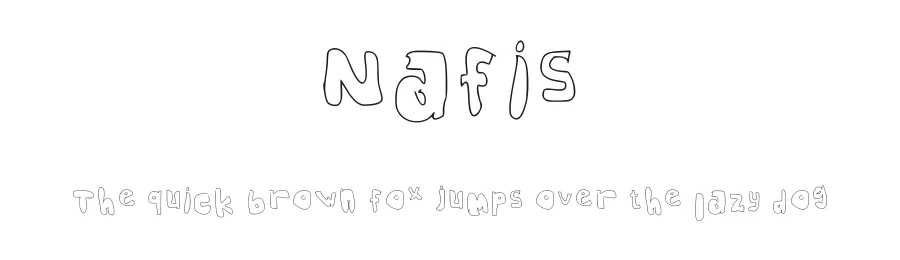
About Cloud Font
Cloud is a decorative font designed by Ashlye Etgen. It includes 53 glyphs, a regular weight, TTF (TrueType) format, and 89 languages. Cloud is free to download; check the license details on this page before commercial use. Decorative fonts like Cloud work best for logos, posters, packaging, and standout headlines.
Cloud Font is a decorative font that shines as a display or heading face. Pair it with a clean sans-serif or serif font for body text β the contrast creates a clear hierarchy while the two styles stay balanced and easy to read.
Cloud Font
by Ashlye Etgen
Cloud Font is a decorative typeface by Ashlye Etgen, ideal for logos, invitations, branding, and creative projects.